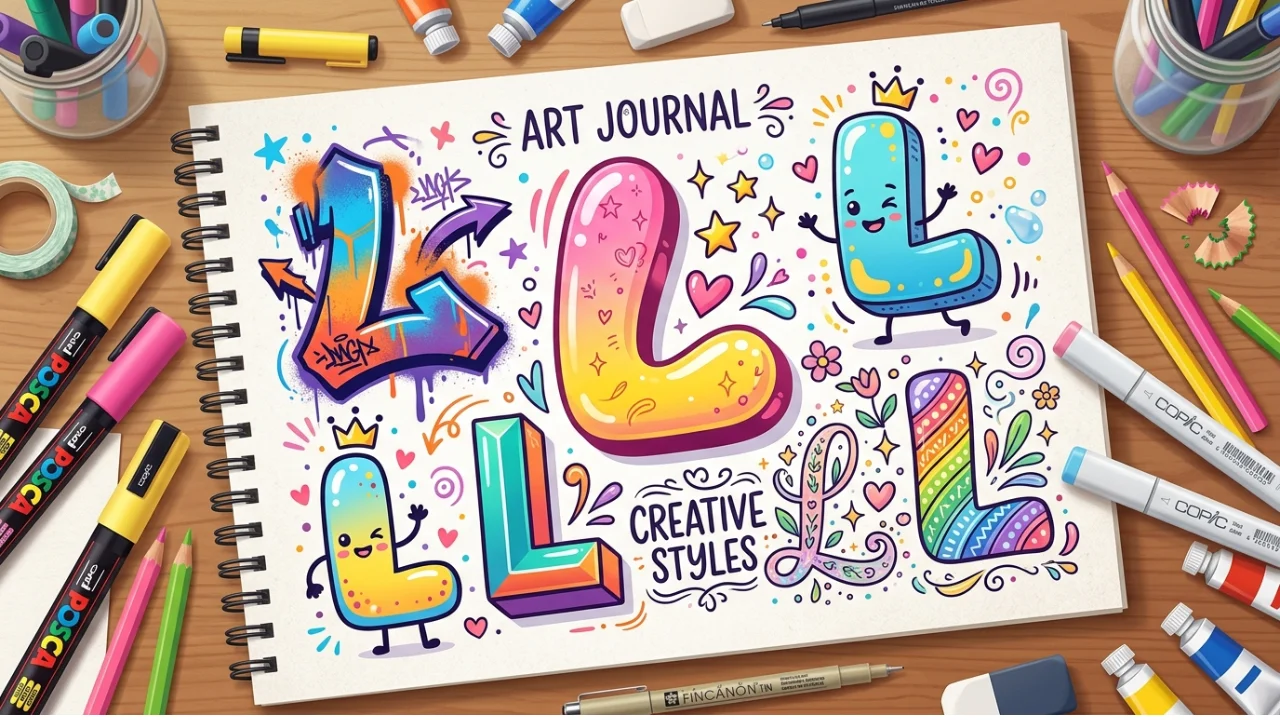
L in Bubble Letters Easy Drawing Guide Styles and Creative Ideas
Bubble letters make writing look fun, bold, and creative. Many people use them in posters, school projects, graffiti art, birthday cards, and digital designs. One of the easiest and most stylish letters to learn is l in bubble letters. This letter has a simple shape, so beginners can practice it without stress.
In this guide, you will learn how to draw bubble letter L step by step, explore different styles, avoid common mistakes, and discover creative ways to use it. Whether you are a student, artist, or hobbyist, this article will help you improve your lettering skills quickly.
What Is L in Bubble Letters?
The term l in bubble letter refers to the letter āLā drawn with thick, rounded edges instead of straight lines. The style gives the letter a soft and puffy appearance. Artists often use bubble letters because they look playful and eye-catching.
Bubble lettering started becoming popular in graffiti culture during the 1970s. Over time, it became common in classroom art, logo design, and social media graphics. Today, many people practice bubble letters for fun or creative projects.
The bubble style works well because it is:
- Easy to learn
- Fun to decorate
- Great for beginners
- Useful in many art projects
Why People Love Bubble Letter
Bubble letter stay popular because they look friendly and creative. They also allow artists to add personal touches like colors, shadows, and patterns.
| Benefit | Explanation |
|---|---|
| Easy to Draw | Most bubble letters use simple shapes |
| Creative Style | Artists can add decorations and effects |
| Kid-Friendly | Children enjoy drawing rounded letters |
| Great for Posters | Bubble letters stand out from far away |
| Useful for Crafts | They work well in cards and signs |
Step-by-Step Guide
Learning bubble letter becomes easier when you follow simple steps. Start with a pencil so you can erase mistakes easily.
Step 1: Draw a Basic Letter L
First, draw a normal capital L using light pencil lines. Keep the lines tall and straight.
The basic shape should look simple:
- One vertical line
- One horizontal line at the bottom
Do not press too hard with the pencil.
Step 2: Add Rounded Edges
Next, thicken the lines by drawing another line around the original shape. Make the corners round instead of sharp.
This step creates the bubble effect. The letter should now look soft and puffy.
Step 3: Connect the Lines
Join the outer lines smoothly. Make sure no gaps remain. The outline should look clean and rounded.
This stage transforms the normal letter into l in bubble letter.
Step 4: Erase Inner Guidelines
Erase the original thin letter inside the bubble outline. Only the thick rounded shape should remain.
Step 5: Add Color and Details
Now you can decorate the bubble letter with:
- Bright colors
- Patterns
- Shading
- Highlights
- 3D effects
This final step gives your artwork personality.
Different Styles of Bubble Letter L
Artists use many styles when drawing bubble letter. Each style creates a different mood or design effect.
Classic Bubble Style
This version uses thick rounded lines with smooth edges. It works best for beginners.
Graffiti Bubble Style
Graffiti bubble letter look larger and more dramatic. Artists often add arrows, shadows, and bold outlines.
Cute Cartoon Style
This style includes smiling faces, stars, or playful decorations. Children often enjoy this design.
3D Bubble Letter Style
A 3D version adds depth and shadows. It makes the letter appear as if it pops off the page.
Fancy Decorative Style
This style uses patterns like:
- Dots
- Hearts
- Flames
- Stripes
- Glitter effects
Many artists experiment with l in bubble letter to create unique artwork.
Best Tools for Drawing
You do not need expensive supplies to practice bubble lettering. Simple tools work perfectly for beginners.
| Tool | Purpose |
|---|---|
| Pencil | Sketching outlines |
| Eraser | Fixing mistakes |
| Black Marker | Creating bold outlines |
| Colored Pens | Adding details |
| Paper | Practicing designs |
| Digital Tablet | Making digital artwork |
Common Mistakes Beginners Make
Many beginners struggle with bubble lettering at first. Most mistakes happen because of uneven shapes or rushed drawing.
Uneven Thickness
Some parts of the letter may look thicker than others. Try to keep the outline balanced.
Sharp Corners
Bubble letter should look rounded. Sharp edges remove the soft bubble effect.
Messy Outlines
Clean outlines make bubble letter look professional. Draw slowly and carefully.
Too Much Decoration
Extra patterns can make the design hard to read. Keep decorations simple at first.
Bubble lettering works well for school projects, digital art, posters, greeting cards, and graffiti-style designs. With regular practice, anyone can create stylish and professional-looking bubble letter.
Start with simple outlines, practice clean curves, and experiment with colors and decorations. Over time, your bubble letter skills will become more polished and creative.